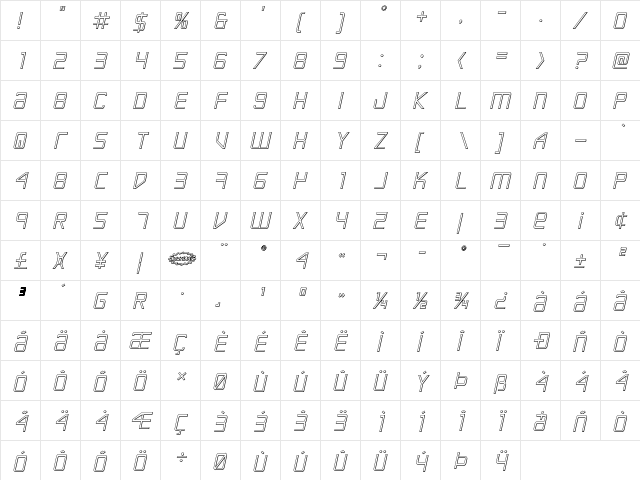
Escape Artist 3D Semi-Italic Semi-Italic
Design Context for Escape Artist 3D Semi-Italic Typeface
Escape Artist 3D Semi-Italic takes a measured approach to typography — its balanced proportions and neutral character make it a reliable workhorse for both digital and print work. Its italic angle brings a sense of urgency and motion to the letterforms.